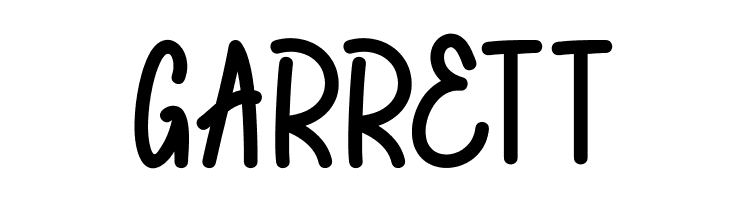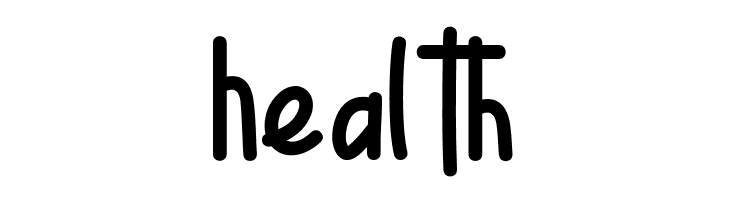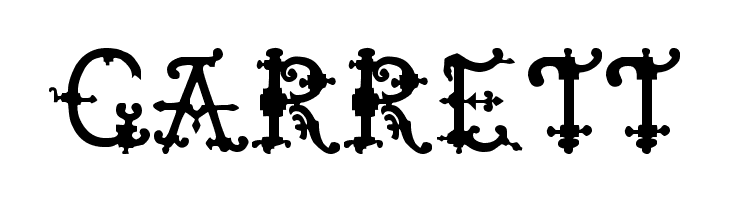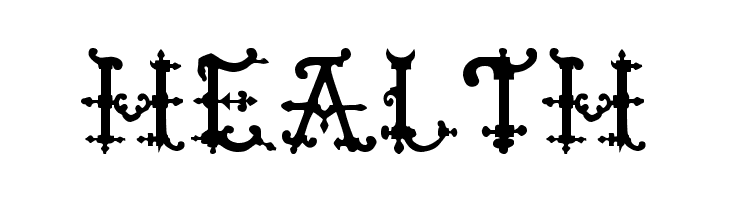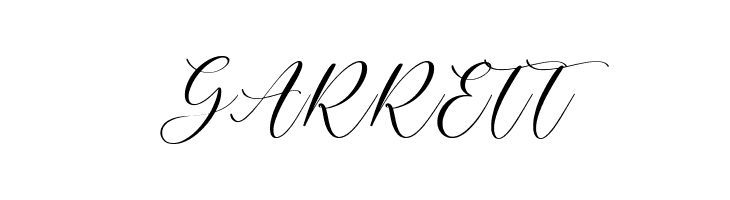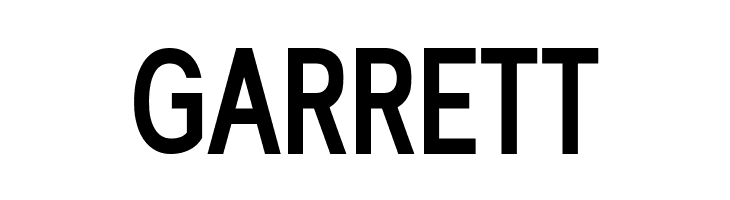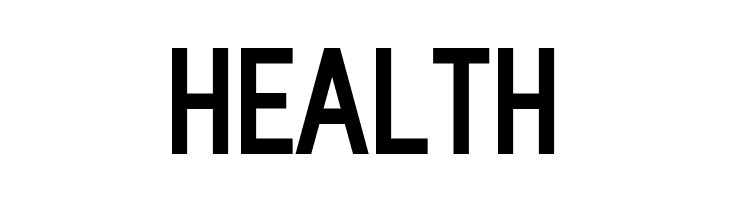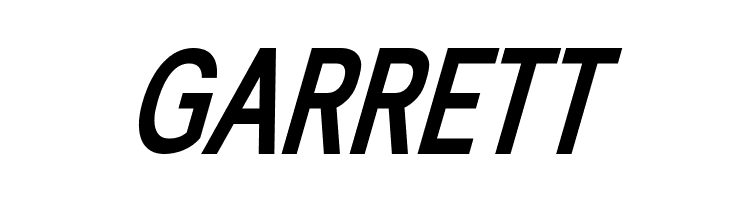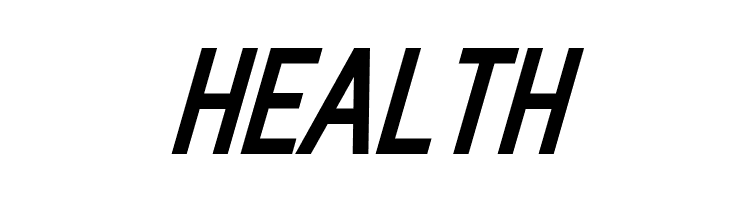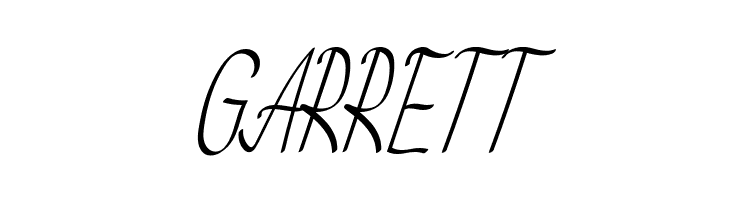
A sophisticated script font with flowing, elegant letterforms.
An ornate, Elizabethan-style decorative font with intricate flourishes.
A bold, modern sans-serif font with a clean and uniform design.
A sleek, italicized font with a modern and dynamic style.
Elegant cursive script with fluid, connected letters and graceful curves.
A casual, handwritten font with a playful and informal style.
A playful, handwritten font with smooth, rounded edges and a casual style.